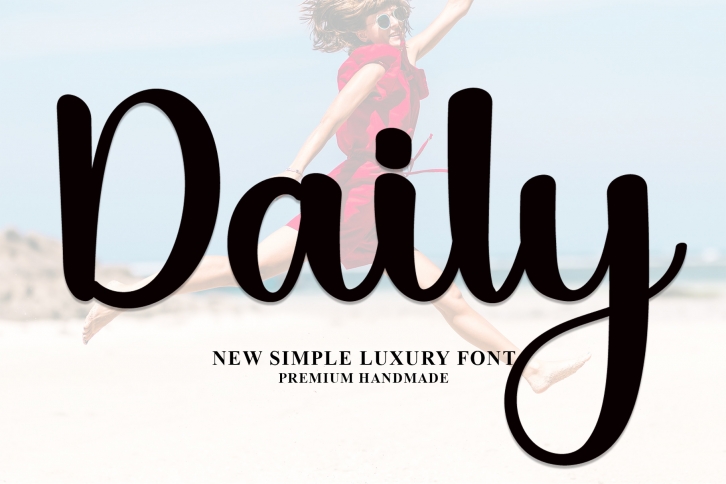
Daily is a stylish handwritten font with a contemporary atmosphere and impeccable form, inspired by a timeless classic calligraphy. Balanced and varied, this font was designed to enhance the beauty of your projects.